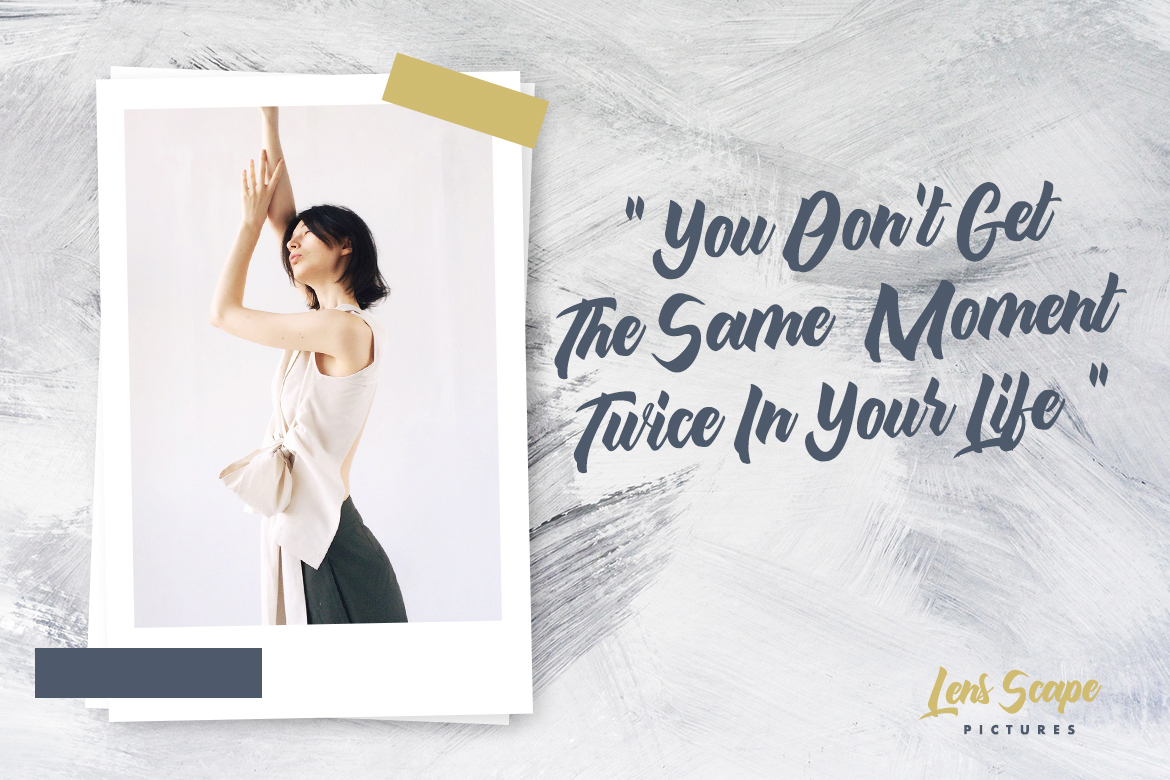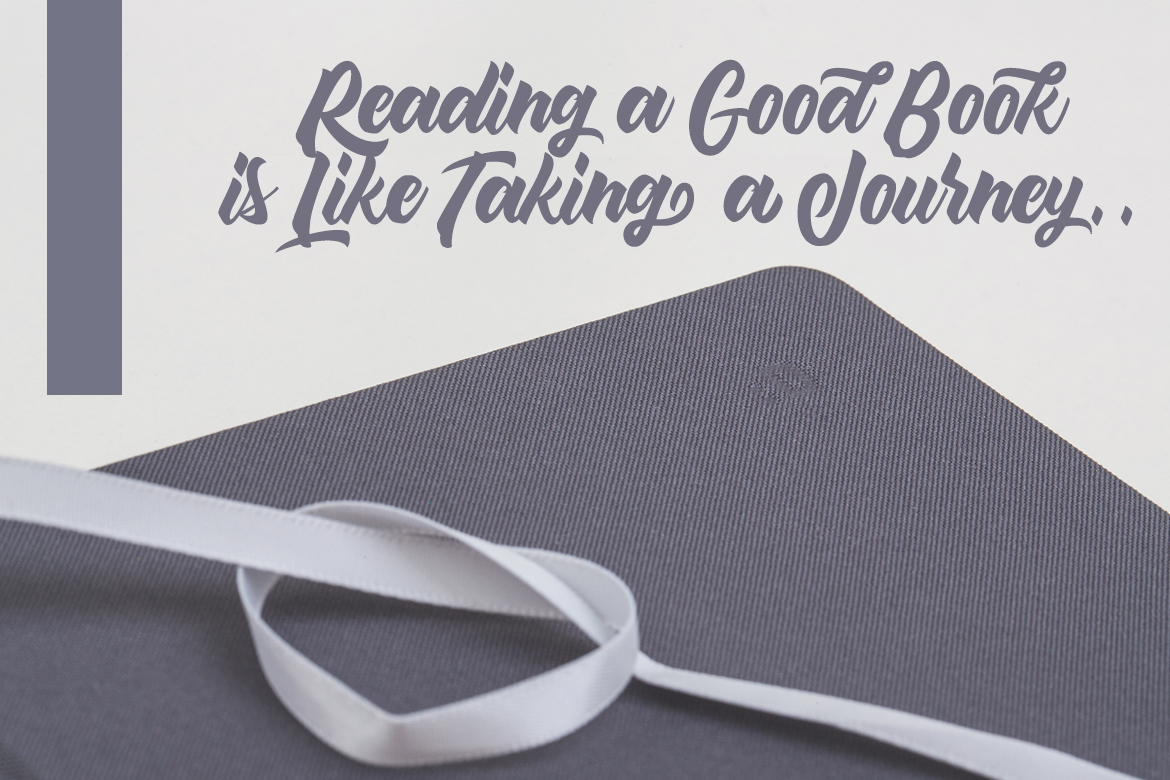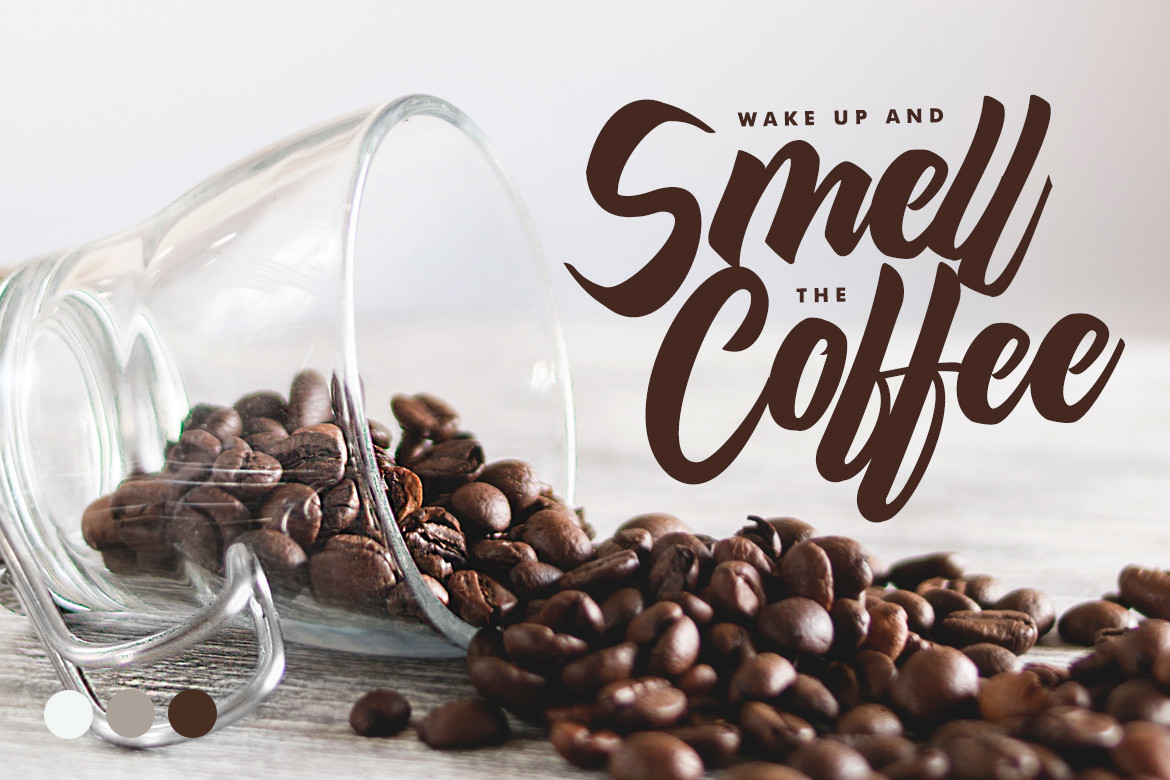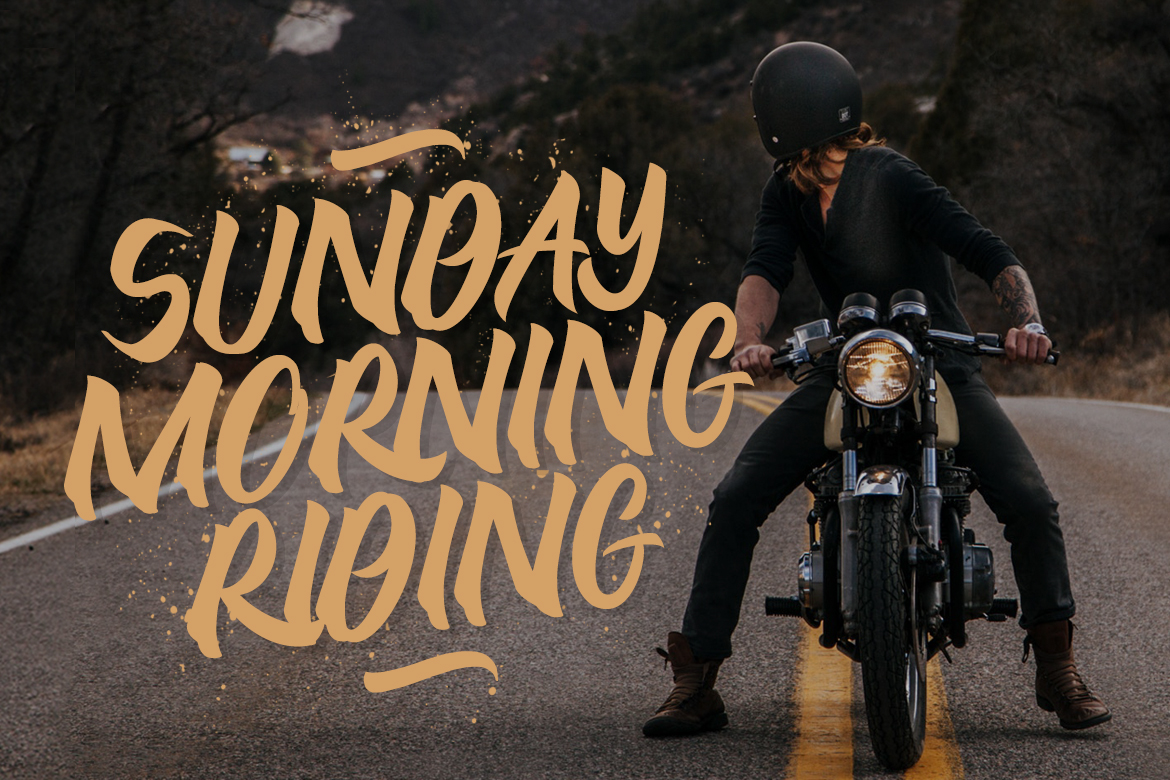
Maghody Script Free Font
Maghody Script Free Font is a script typeface with bold and strong natural movement, this font is great for your various amazing project. Maghody Script Free Font is perfect for many different projects such as logos & branding, invitation, stationery, wedding designs, social media posts, advertisements, product packaging, product designs, label, photography, watermark, special events, or anything. This free typeface was designed by a talented Creatype Studio. If you like it don’t forget to check out the full version.